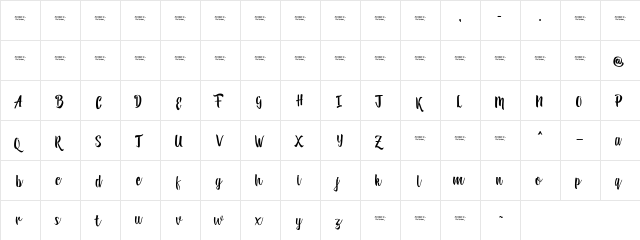
Reybro Regular Font Preview
Reybro Regular
Reybro Regular Font Details
Design Context for Reybro Typeface
Reybro is a composed and adaptable typeface that performs quietly and consistently across a wide range of design contexts.